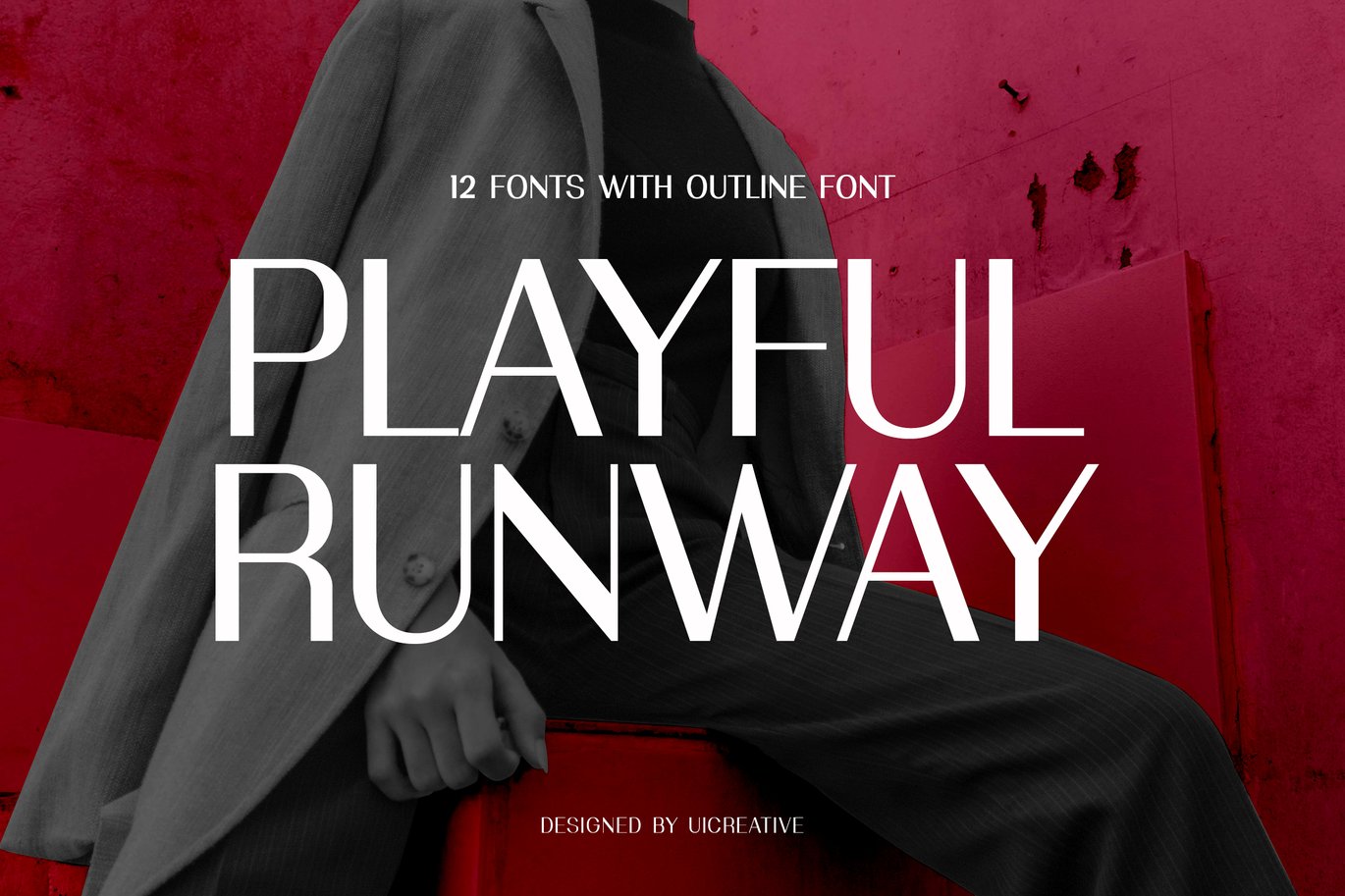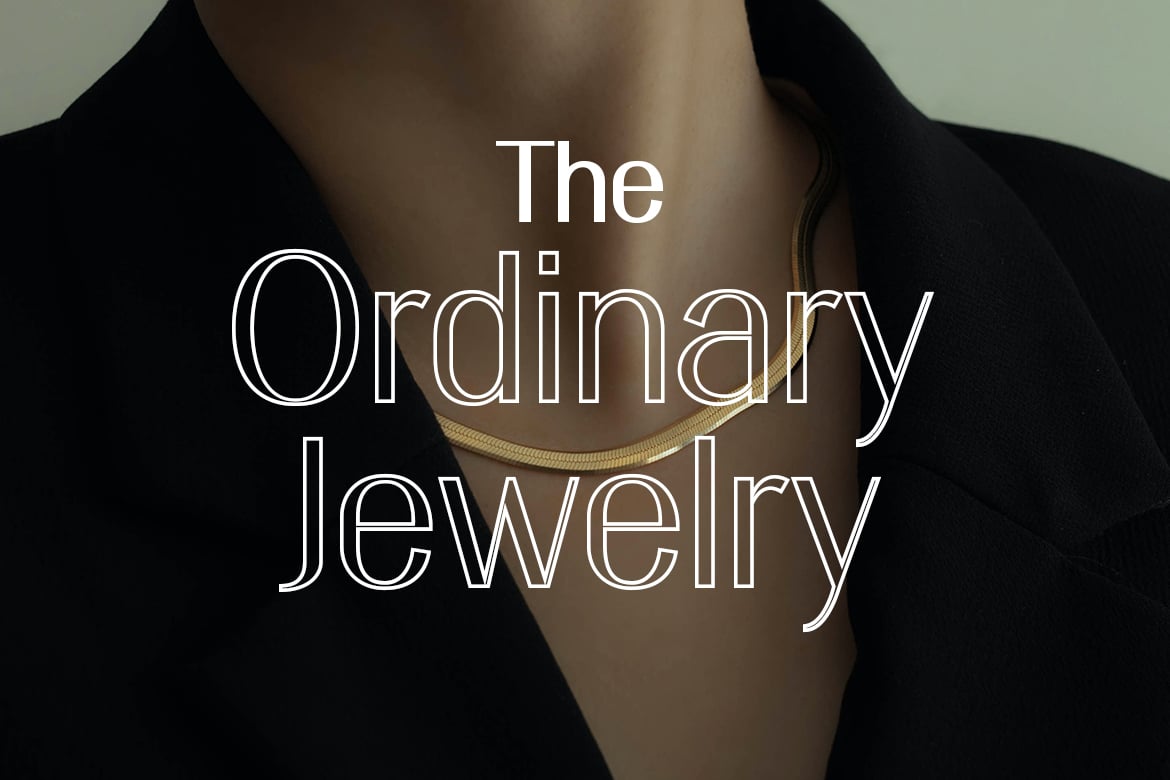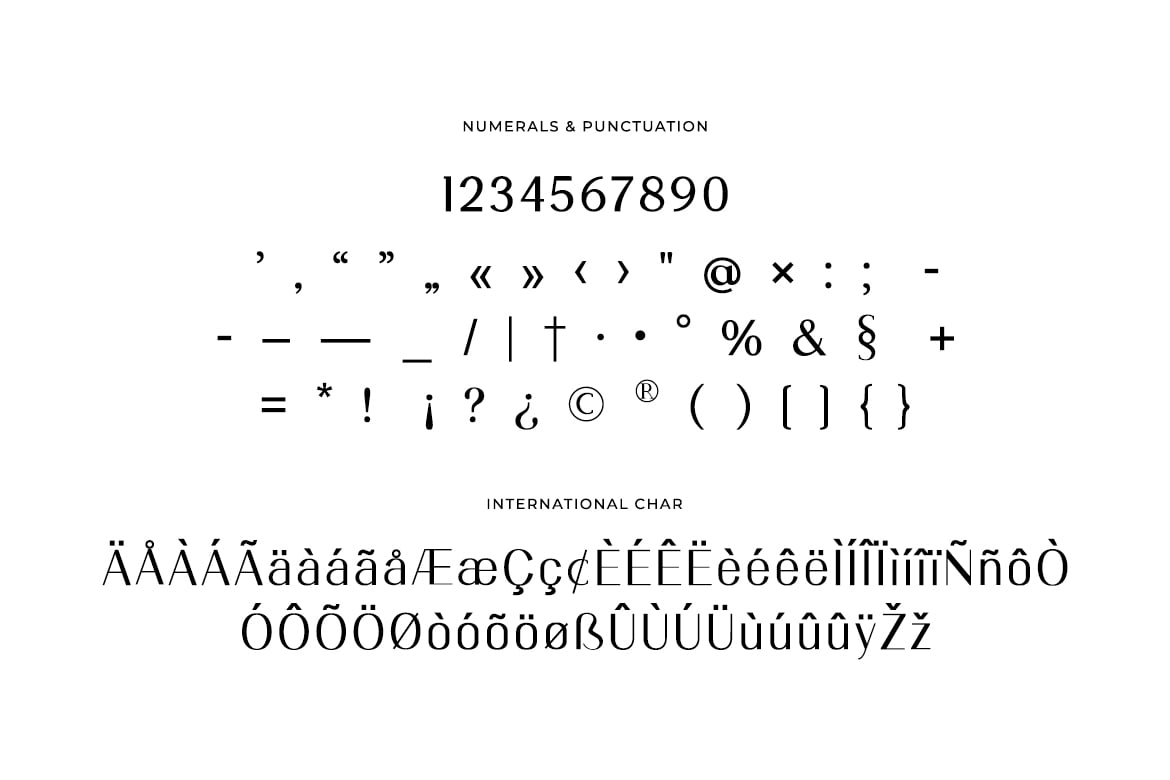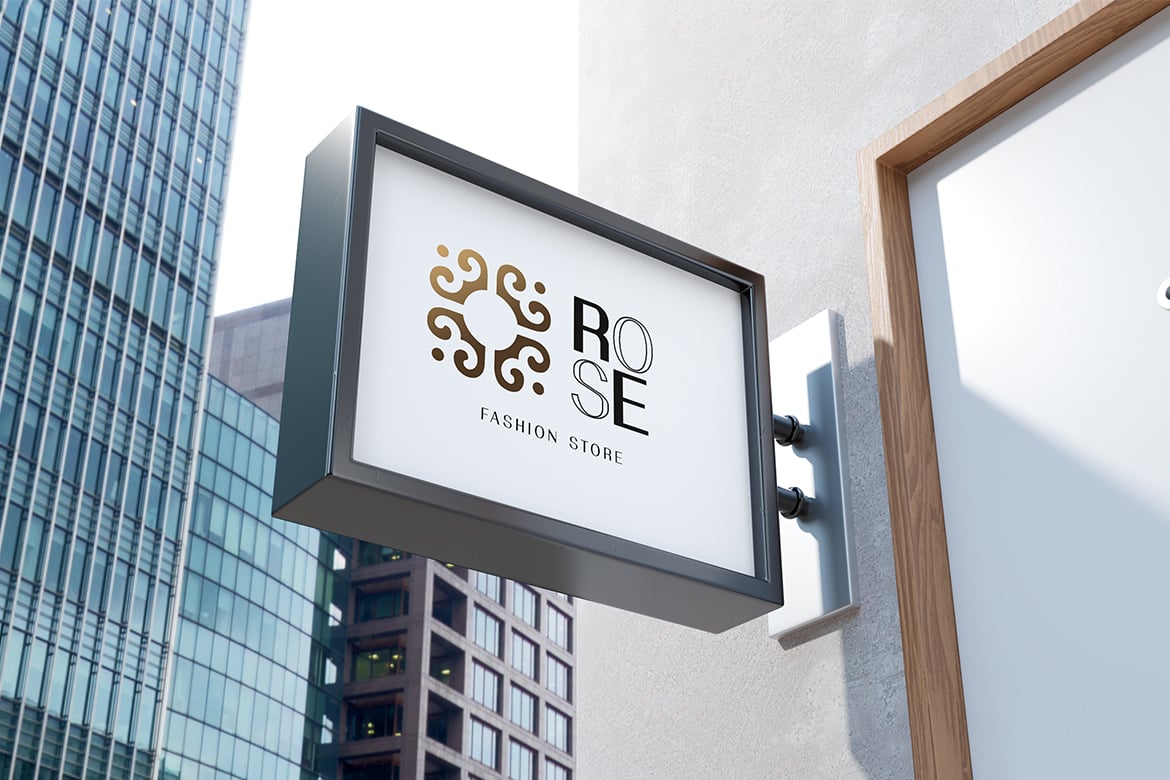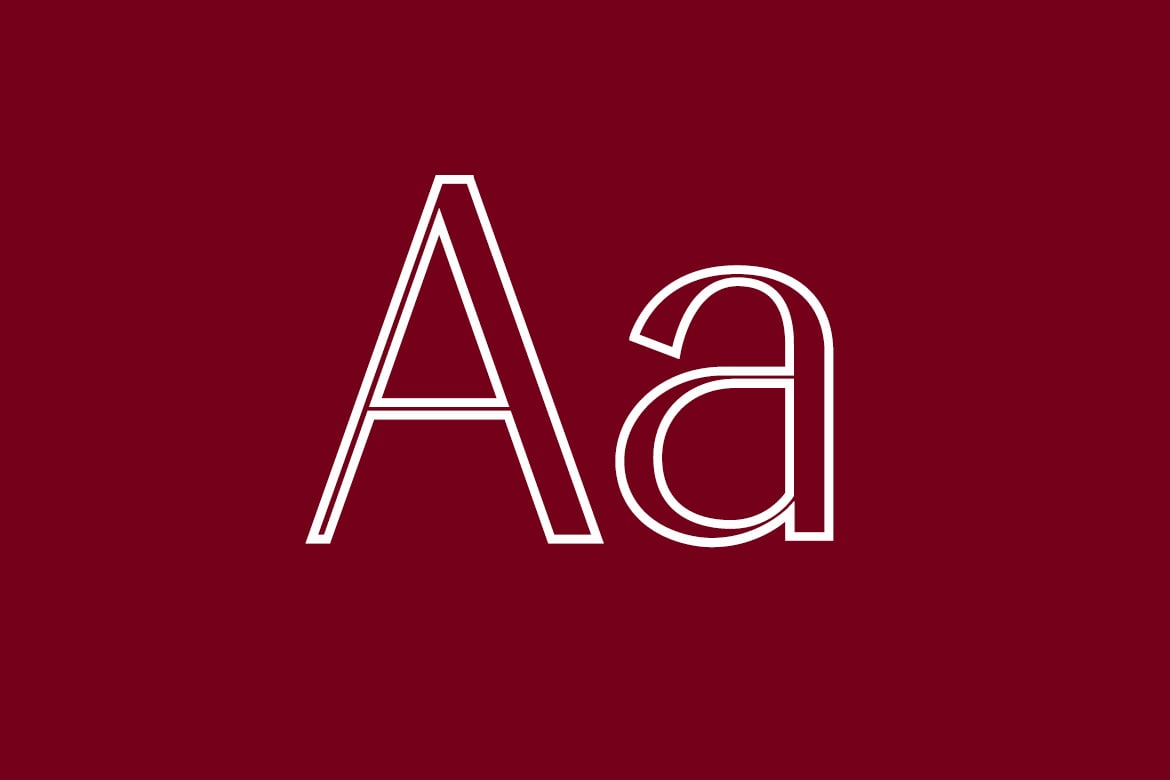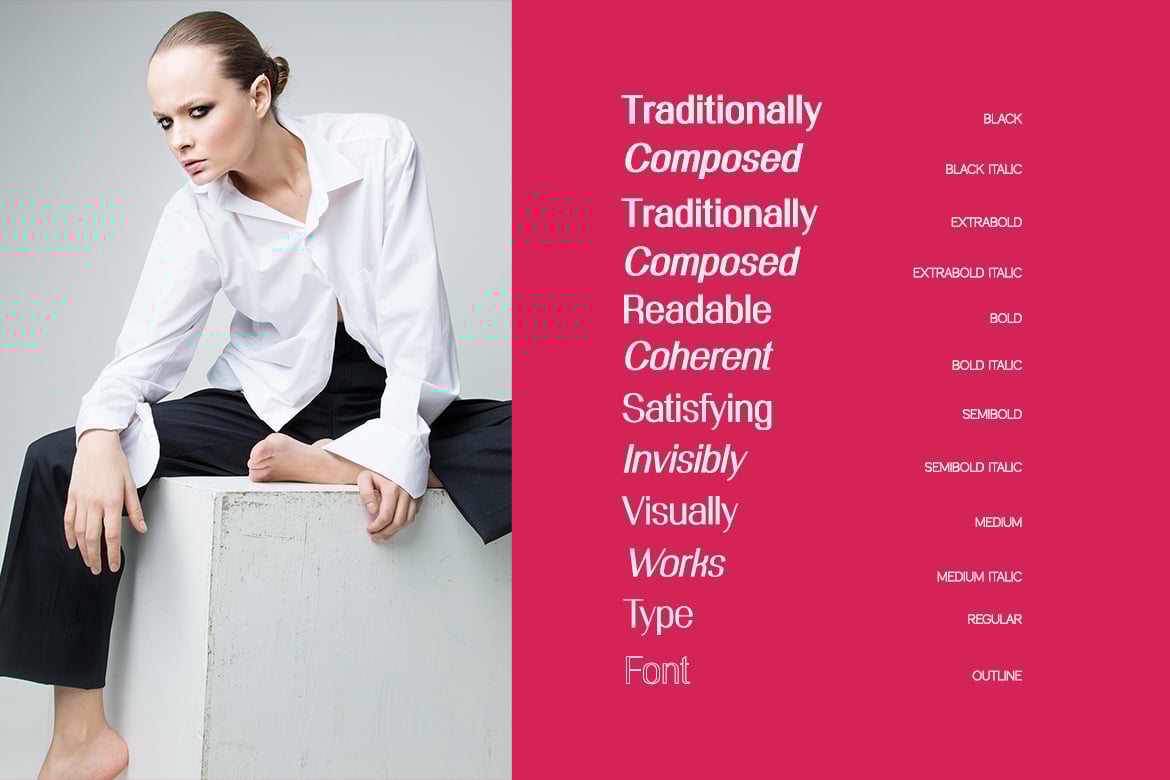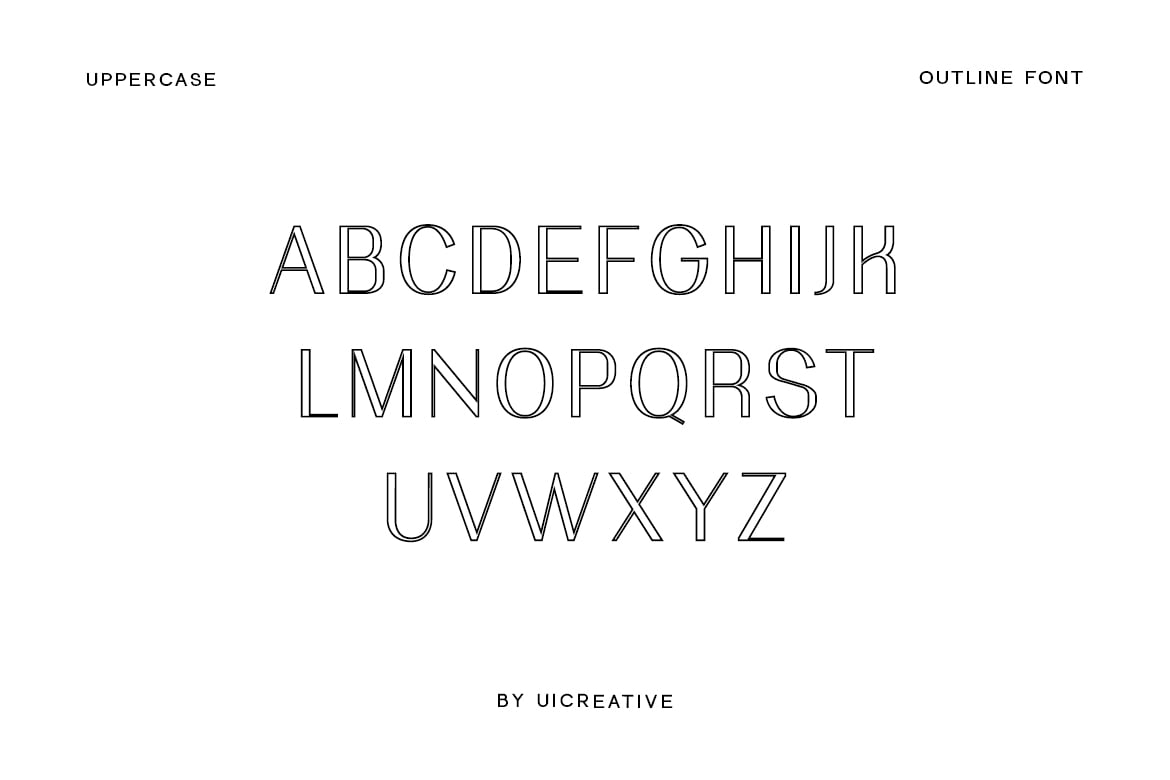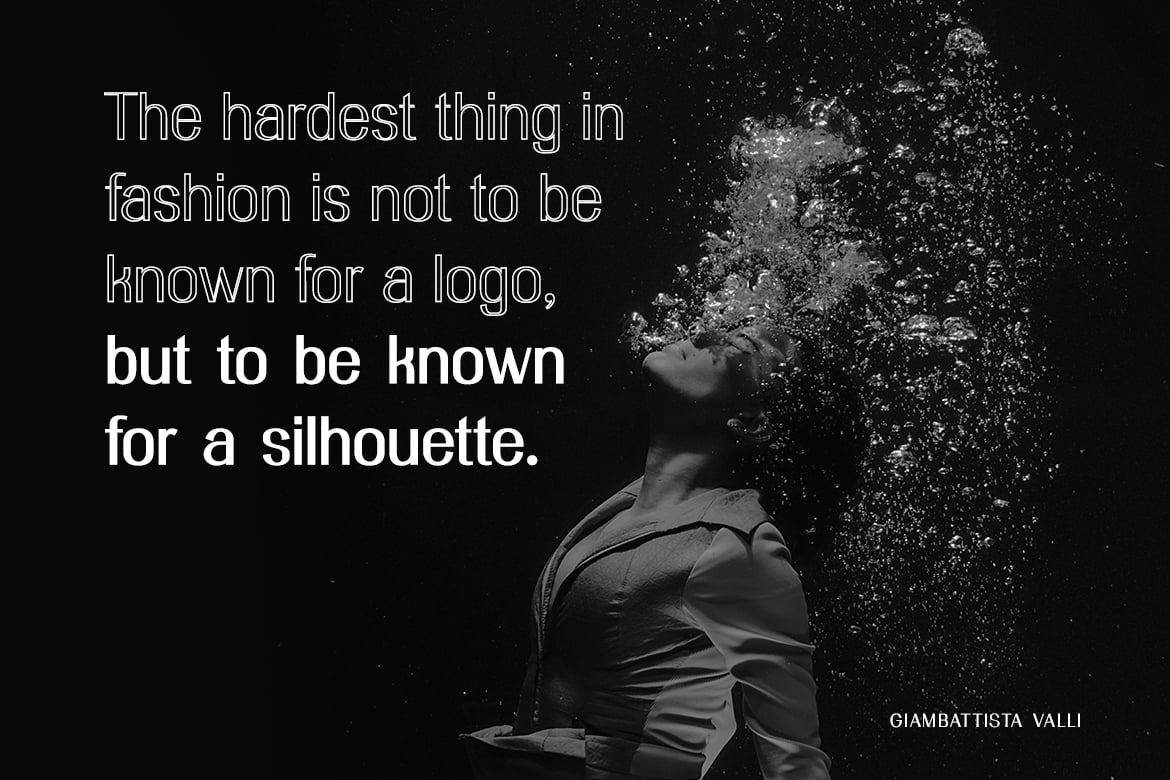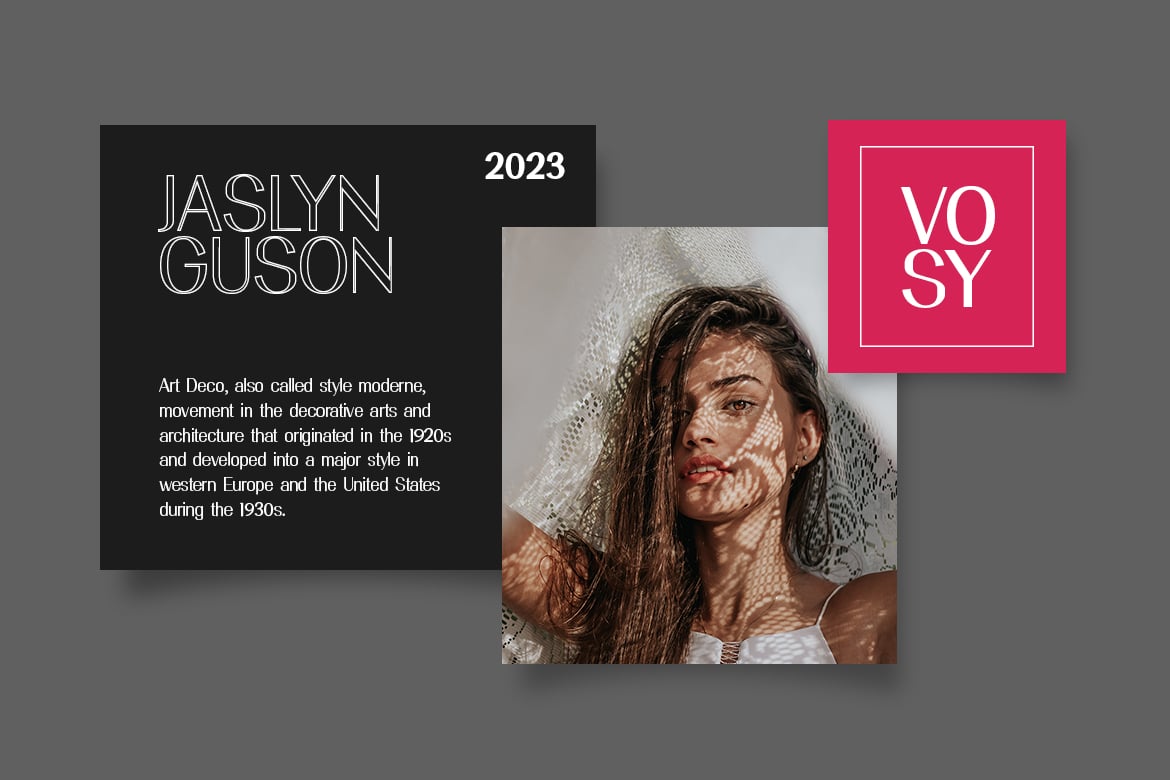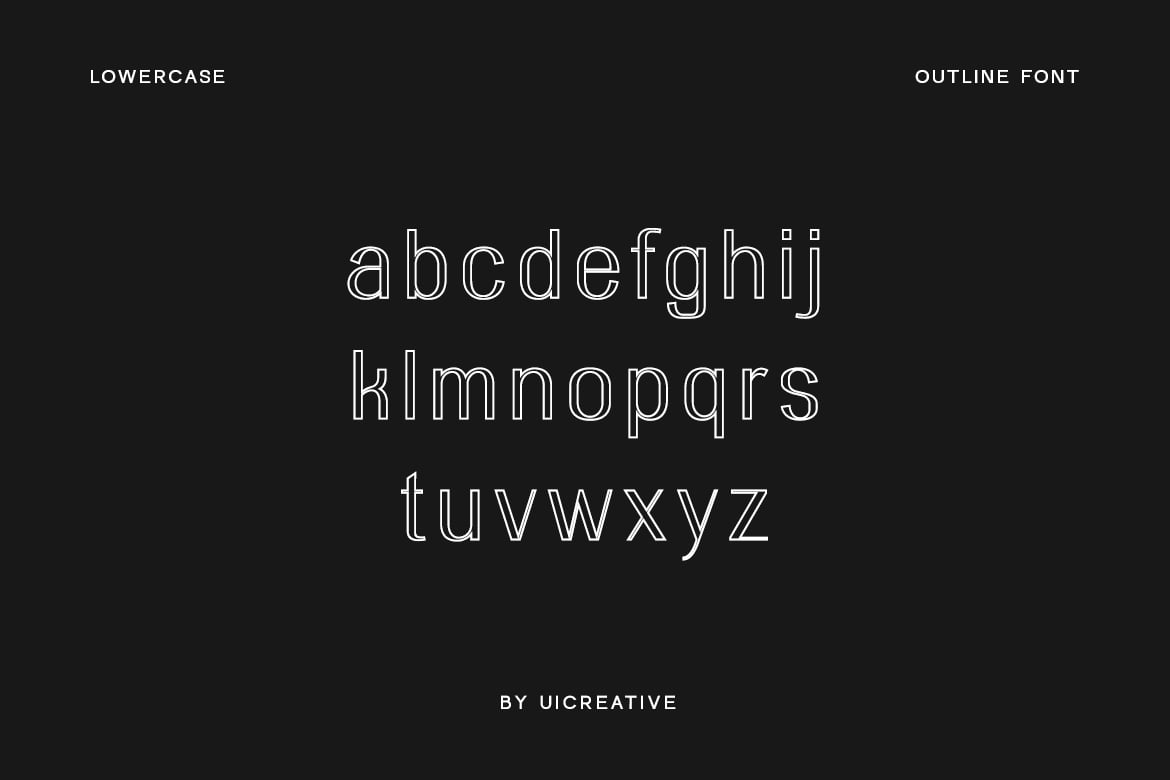
Playfull Runway Sans Serif Family Font
Introducing our new product the name is Playfull Runway Sans Serif Family Font. Playfull Runway Sans Serif Family Font that feels beautiful classy, elegant, and modern. This font is perfectly suited for a wide variety of projects, such as signature, stationery, logo, wedding, typography quotes, magazine or book covers, website headers, branding, packaging design, and more. Also, fashion-related branding or editorial design displays both masculine and feminine qualities.